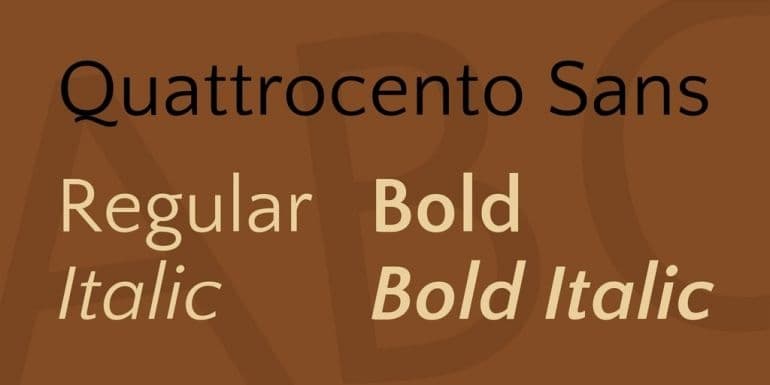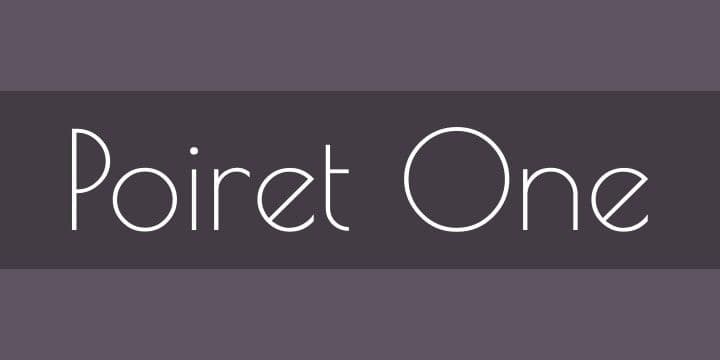
Whether we are talking about serif, sans serif, proportional, or monospaced typefaces, one thing's clear—the font dictates how your brand is perceived by others.
Nowadays, design tools offer thousands of banner fonts for you to use to make a banner.
There are no limits when it comes to banner design besides your own inspiration and imagination.
Not so long ago, however, advertising relied only on printed media inserts and outdoor displays. Back then, the marketer's job was infinitely more difficult.
Moreover, the choice of fonts was limited to a few typefaces. Metal fonts were stored in metal boxes, and texts were assembled manually, letter by letter.
Now, you may wonder how to choose the best fonts for banners when so many options are available today.
Hopefully, this article will help you make a quick and inspired choice because I'm going to talk about 35 cool banner fonts.
Before you continue reading, you have to keep in mind that fonts are not only about your taste in design. Colors, fonts, and typography should also represent and appeal to your target audience once you create your buyer personas.
Now that we've established that let's get started.
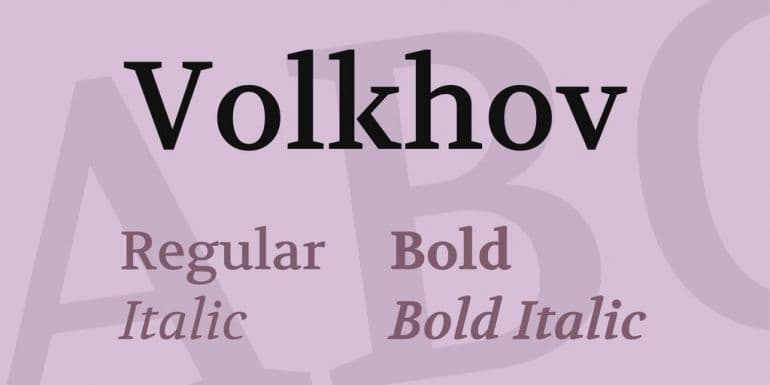
Our first classic font is Volkov, a Serif typeface with a robust, legible, and prominent design, suitable for complex texts.
You can use it as a title in your banner designs, but it will be more suitable as a message bearer font. Unlike other Serif fonts, Volkov looks elegant in a modern design and features a natural flow that makes it readable.
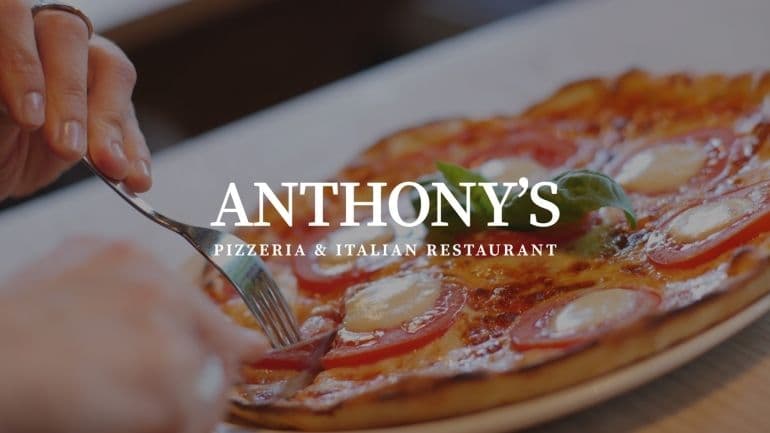
Source Serif Pro is yet another excellent example of a Serif font. It's thinner than Volkov but similar in style. Also, it makes the perfect choice for a banner that relays a longer message.
It works well, however, with any kind of copy text, regardless of its length. It's elegant and easy to read.
Advent Pro is our first Sans Serif entry on this list of great-looking banner fonts. It's a modern-looking typeface with a thin design that makes it perfect for banners with a simple monochrome background.
However, it comes in seven modes: thin, extra-light, light, regular, medium, semi-bold, and bold. This is why it can be adjusted to suit any banner regardless of its design.
Although it is a Script font, we like Allura because it looks stylish and easy to read.
Therefore, it is perfect for a banner design. Allura was designed by Rob Leuschke and comes from the finest hand lettering fonts family, including non-Scripts.
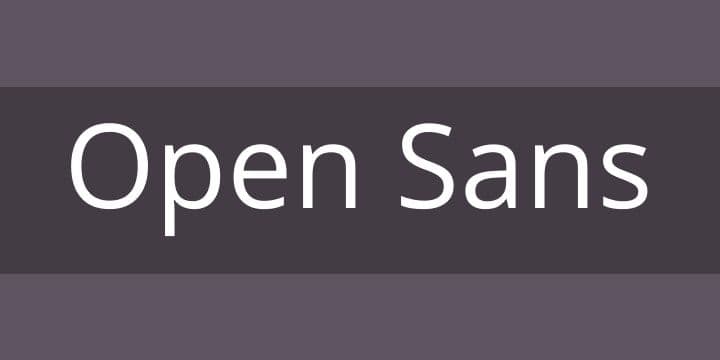
If you are looking for a free banner font that will give your banner a clean and readable look at the same time, take a look at Open Sans.
The font is optimized for both print and web, and it also looks great on mobile.
If you are preparing a marketing campaign, the way the banner looks on mobile devices is fundamental since most consumers spend a lot of time on their smartphones.
Another important fact is that Open Sans contains a complete 897 characters set, which makes it available in almost all languages, including Greek and Cyrillic.
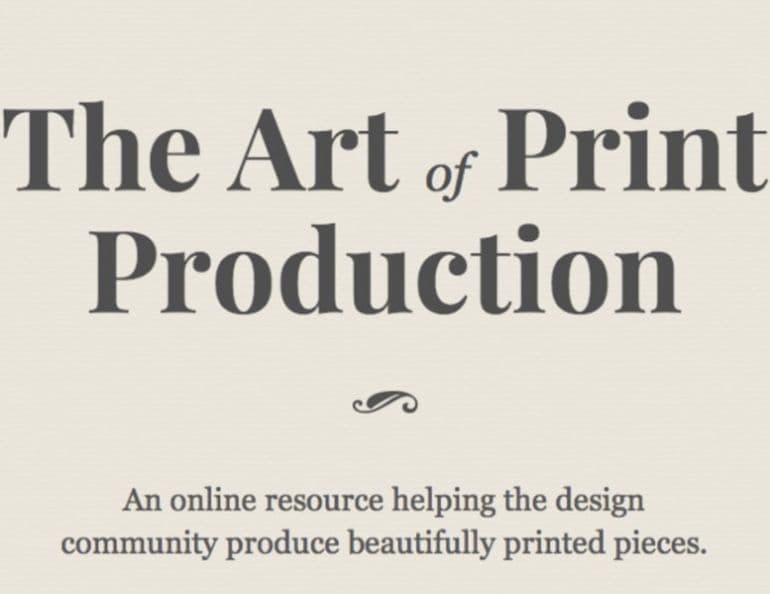
Our list of 35 best fonts for banners continues with yet another typeface you can use as the primary choice for banner titles.
Even though it is not a traditional Display font, Playfair bears this name because it was designed especially for large-scale display use.
However, you can also use the Regular style for body text.
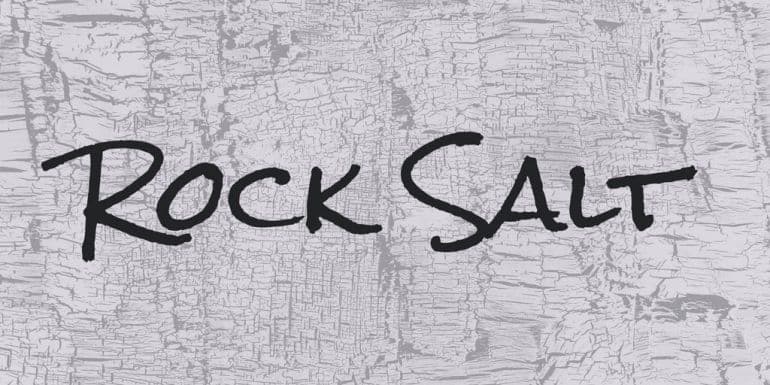
Another cool banner font is Rock Salt, a typeface that will give your banners a personal and out-of-the-box look. It was designed with felt-tip markers, and it certainly looks like it. It is available only in Regular style and uppercase.
In many ways, it looks very similar to the fonts we can find in comic books.
Sacramento is a free banner font that falls into the Script category. In other words, it mimics handwriting. It does this quite well, being one of the most accurate Script typefaces available today.
The font is round, stylish-looking, and easy to read, just like traditional handwriting.
Sacramento may be the perfect choice if you are looking for such a font to complement your title or body text.
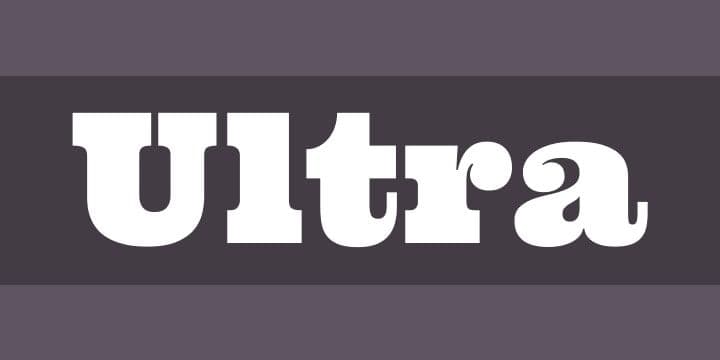
Ultra is a free banner font that falls into the Display category. It's a wood-type style with bold letters but very easy to read. It's perfect to create a powerful headline that looks sharp and dramatic.
If you are looking for a traditional-looking headline, this may be precisely what you needed. However, note that it can take a lot of space, so it may not be suitable if you intend to squeeze in a longer message.
Veteran Typewriter is another display font that can be mistaken with a Serif font because it perfectly mimics typewriter letters.
Although it bears a Serif looking typeface, this font is recommended for titles only and call to action in some cases.
It may not convince you at first, but we assure you it is quite readable and stylish looking when you use it on the right banner.
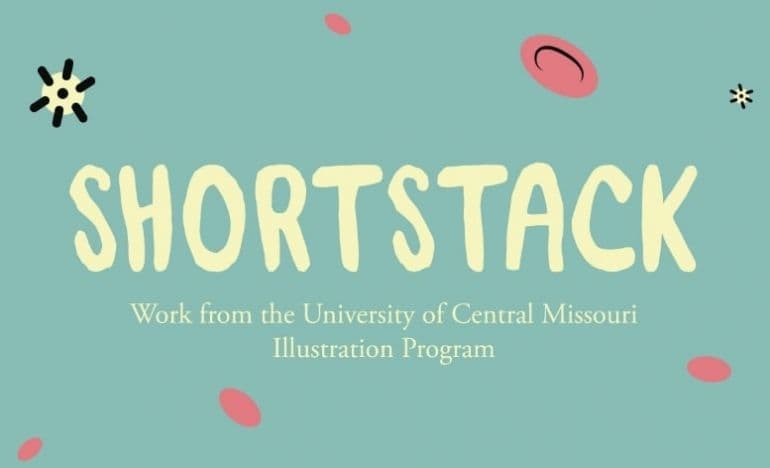
To do that, you need to carefully select the appropriate fonts for each banner in particular. The fonts should complement the message but also the overall style and look of the banner.
This article was meant to present you with 35 fonts for banners so you can choose a suitable banner font based on our examples and descriptions.